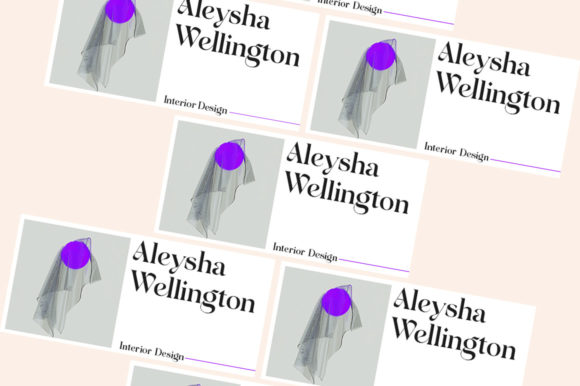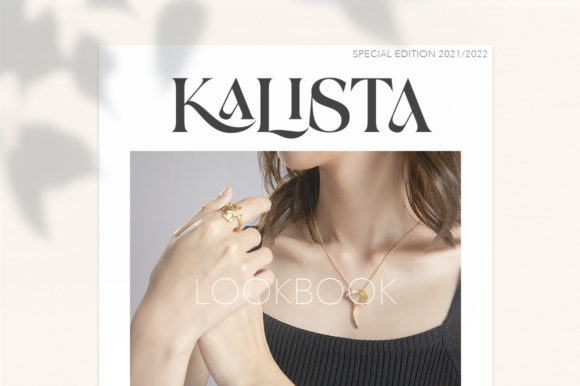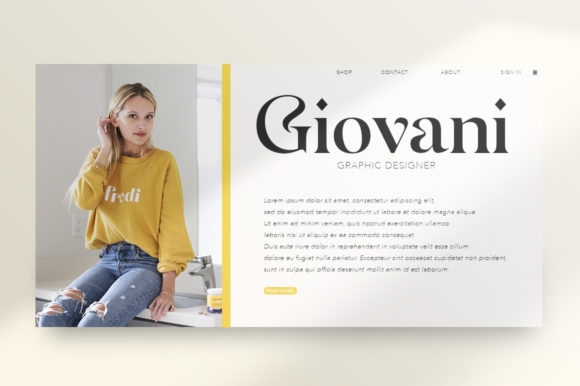
Introduction to Megista Font
Have you ever stared at a blank page, desperate for the perfect font to bring your creative project to life? The frustration is real, but the solution is here. Meet the Megista Font, a stylish and distinct serif font that’s about to revolutionize the way you design.
As a designer, you know the value of a high-quality font that elevates your work and makes it stand out from the crowd. And with the Megista Font, you’re in luck. Not only is it a free download, but it’s also PUA encoded, making it easy to access all the glyphs and swashes you need to add that extra oomph to your designs.
Whether you’re working on a project with a transparent background or need a font that’s going to make a statement, the Megista Font is the perfect design resource to add to your arsenal.
Key Features of Megista Font
- High-quality design for creative projects: Megista Font is designed to meet the needs of designers and artists working on various creative projects.
- High-resolution design: The font is designed at a high resolution, ensuring that it looks crisp and clear on various devices and screens.
- Unique characteristics: Megista Font features a unique blend of modern and vintage elements, making it an excellent choice for designers looking for a distinctive look.
Honest Review: Megista Font
I recently came across the Megista Font, and I was excited to dive in and see what it had to offer. As a designer, I’m always on the lookout for high-quality fonts that can elevate my creative projects.
One of the standout features of the Megista Font is its modern and sleek design. It’s perfect for projects that require a clean and minimalist aesthetic. The font is also available for free download, which is a major bonus. I appreciate that the creators have made this design resource accessible to designers of all levels.
- Modern and sleek design that’s perfect for minimalist projects
- The font may not be suitable for projects that require a more traditional or ornate aesthetic
- The font is limited in its versatility, making it less suitable for projects that require a lot of customization
Overall, I’m impressed with the Megista Font. It’s a great addition to any designer’s toolkit, and I appreciate the creators’ commitment to making it accessible and free to download. While it may have some limitations, it’s a solid choice for designers looking for a high-quality, modern font.
Tips for Getting the Most Out of Megista Font
To get the most out of the Megista Font, use it in combination with other high-quality design resources, such as graphics and images. Experiment with different font sizes and styles to create visually appealing designs. Additionally, use the font’s transparent background feature to create designs with a seamless look.
The Megista Font is a versatile design resource that can be used for a variety of creative projects, including social media graphics, presentations, and documents. It’s a great resource for designers who want to create high-quality designs with a transparent background.
Yes, the Megista Font is designed to be used with a transparent background. This allows for seamless integration with other design elements and makes it ideal for creating high-quality visuals for your creative project.
Q: What is the recommended font size for the Megista Font?
The recommended font size for the Megista Font varies depending on the application and the desired visual impact. However, as a general guideline, we recommend using font sizes between 12pt and 24pt for body text, and 48pt to 72pt for headings. This will ensure optimal legibility and visual appeal.